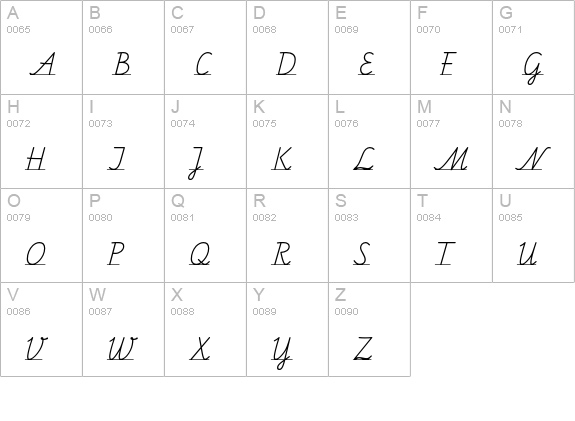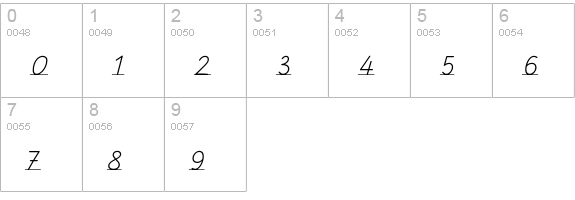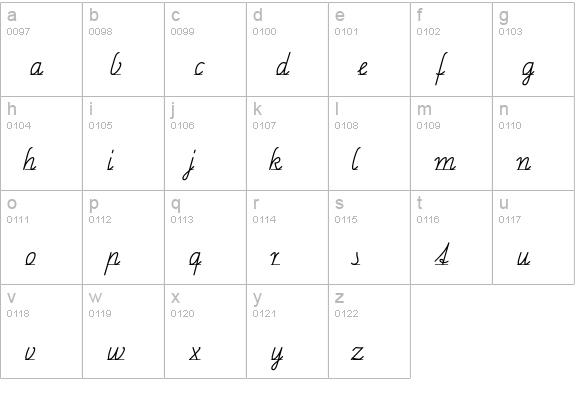
SchulschriftC-L1 Font Details
SchulschriftC-L1 is a delightful and charming font that captures the essence of youthful energy and creativity. Its playful and rounded letters exude a sense of joy and whimsy, making it perfect for a wide range of projects, from children's books and educational materials to invitations and party decorations. The SchulschriftC-L1 font is meticulously crafted, with each letter carefully designed to be visually appealing and easy to read. Its clean and legible style ensures that your message will be conveyed clearly and effectively. Whether you're creating a poster, a logo, or a greeting card, this font will bring a touch of fun and personality to your designs. One of the best things about SchulschriftC-L1 is that it is free! Yes, you read that right. This incredible font is freely available to download at FontsMarket.com, a trusted source for high-quality fonts. This means that you can use it in your personal and commercial projects without any restrictions or limitations. So go ahead and let your creativity run wild with the SchulschriftC-L1 font! With its versatility and playful charm, the SchulschriftC-L1 font is sure to become a favorite among designers, educators, and anyone who appreciates the power of typography. So why wait? Download this amazing font today and start adding a touch of whimsy to your designs.